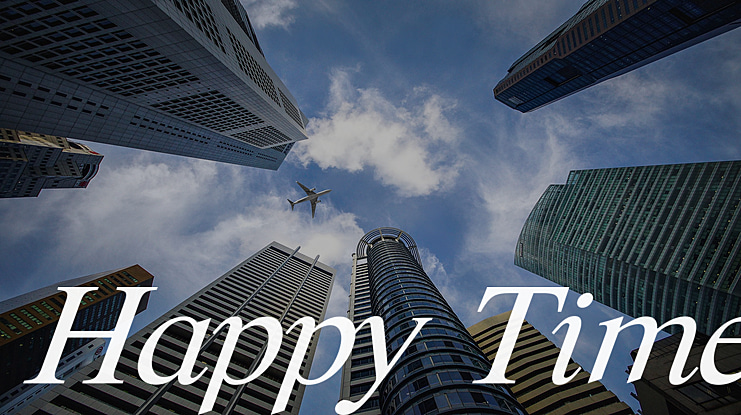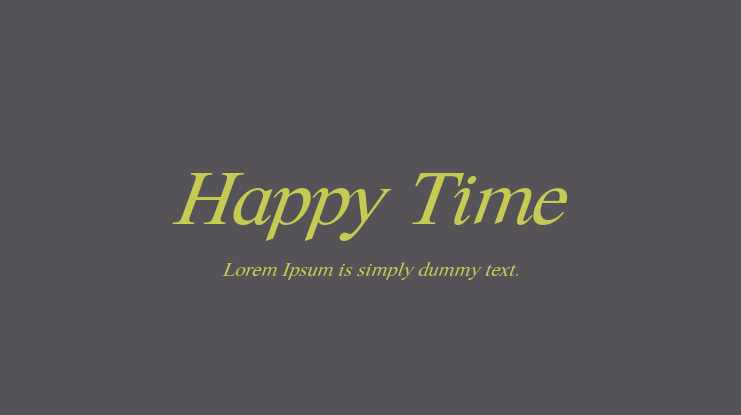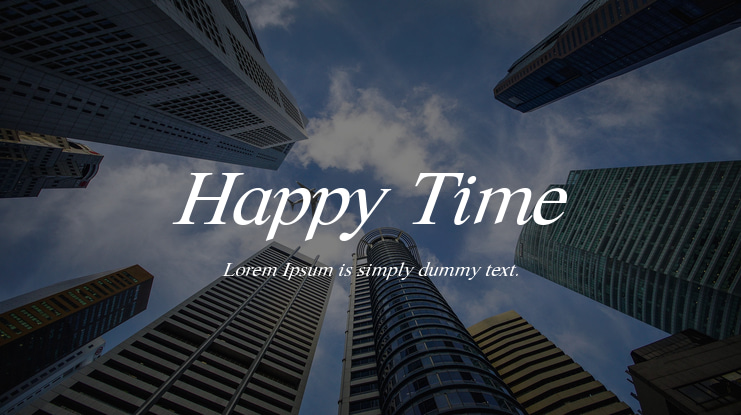
Happy Time Font Family
This is a swash serif font that was forked from TeX Gyre Termes.
Update: New Upright and less angled swash italic weights added.